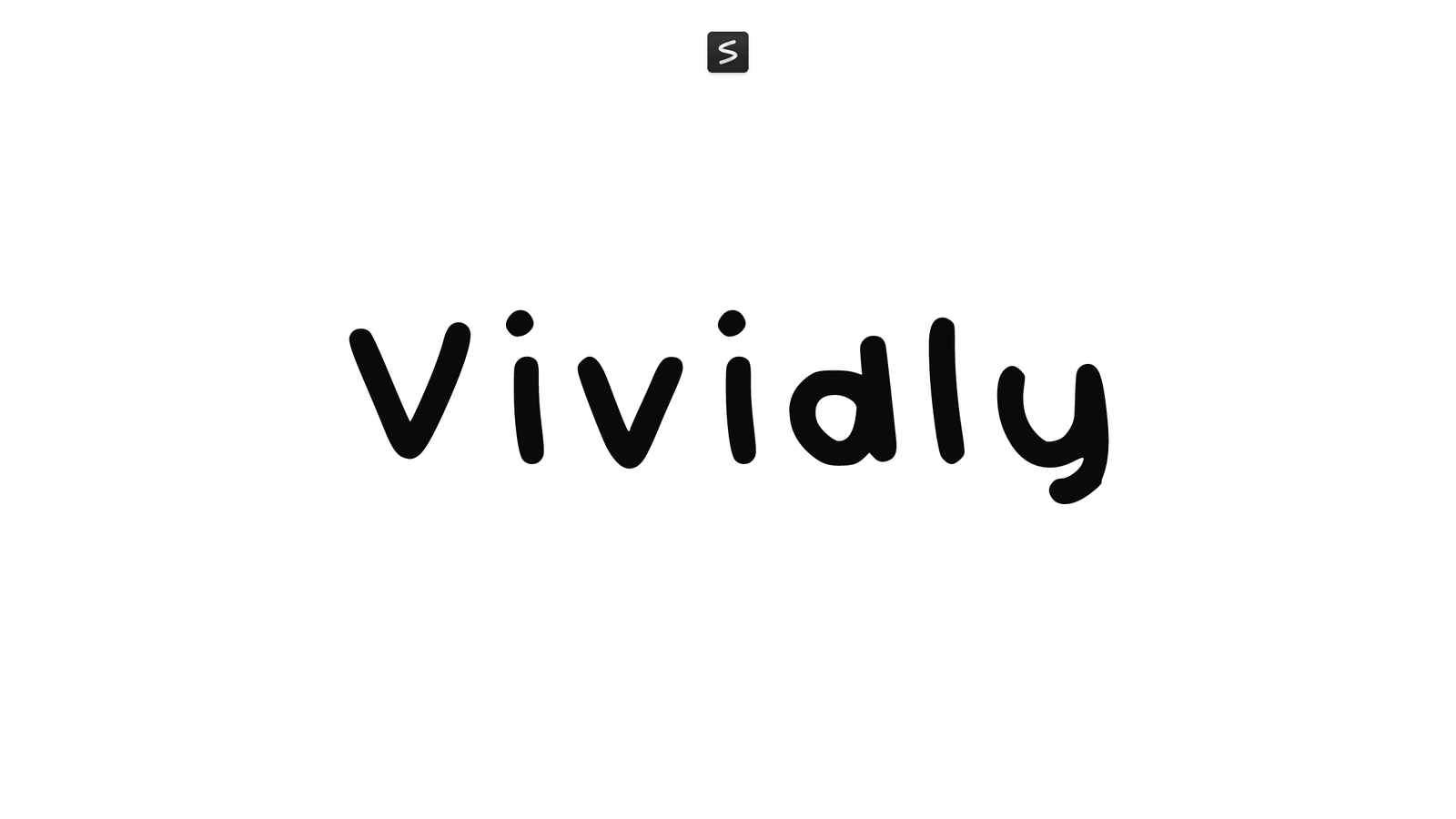
Vividly is a bold handwriting font created by Tata, built on thick, confident strokes that feel drawn by hand rather than generated. The slightly uneven baseline and organic letterforms capture the spontaneity of pen-on-paper lettering, bringing warmth and personality to any design.
The font works well for projects that need character and immediacy: posters, logos, branding, social media graphics, zines, greeting cards, or any design where precision matters less than feeling. Its bold weight makes it readable at most sizes, and the hand-drawn quality gives designs an approachable, genuine tone without feeling overly polished.
Whether for personal or commercial work, Vividly adds a human touch to text. If you want letterforms that look written rather than typed, this is a straightforward choice.